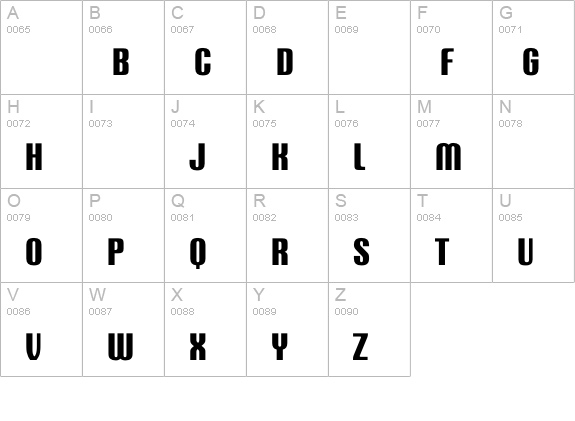
QuestBold Font Details
Introducing QuestBold, a mesmerizing font that adds a touch of elegance and sophistication to any design project. With its bold and strong letterforms, QuestBold commands attention and makes a lasting impression. Whether used for headlines, logos, or branding materials, this font captivates the viewer's eye and leaves a lasting impact. But what sets QuestBold apart from other fonts on the market is its incredible versatility. It seamlessly transitions from modern and edgy to timeless and classic, making it the perfect choice for a wide range of design styles and purposes. No matter the project, QuestBold effortlessly adapts and elevates the overall aesthetic. And the best part? QuestBold is freely available to download at FontsMarket.com. Yes, that's right, you can get your hands on this stunning font at absolutely no cost. FontsMarket.com is your go-to destination for high-quality fonts, and QuestBold is just one of the many gems you'll find there. So why wait? Elevate your designs with QuestBold today and experience the power of this incredible font.